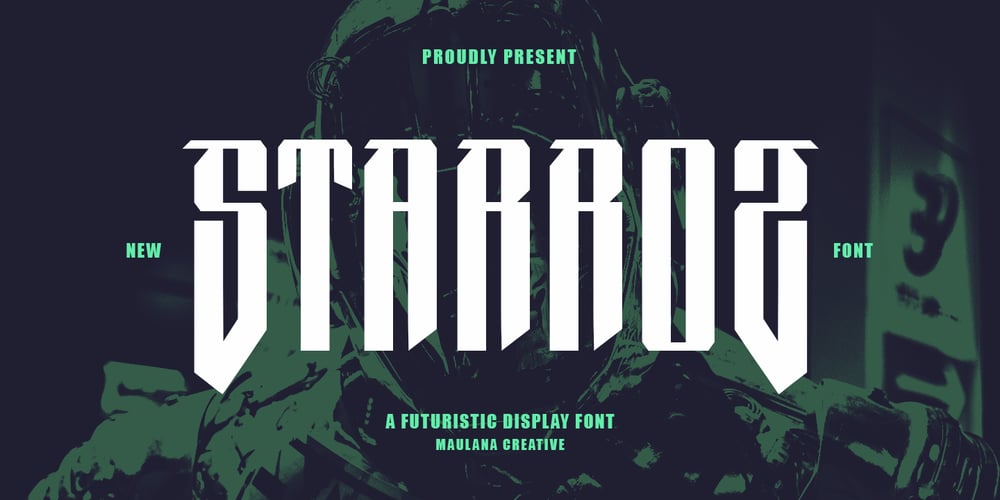
MC Starroz Font Family was designed by Gilang Maulana and published by Maulana Creative. MC Starroz contains 1 styles and family package options. Starroz is a futuristic minimal sans serif display font. With bold stroke, fun character with some of alternate. To give you an extra creative work, Starroz Display font support multilingual more than 100+ language. This font is good for logo design, Social media, Movie Titles, Books Titles, a short text even a long text letter and good for your secondary text font with script or signature typeface. Make a stunning work with Starroz futuristic minimal sans serif display font.Thanks for use this font.Maulana Creative.